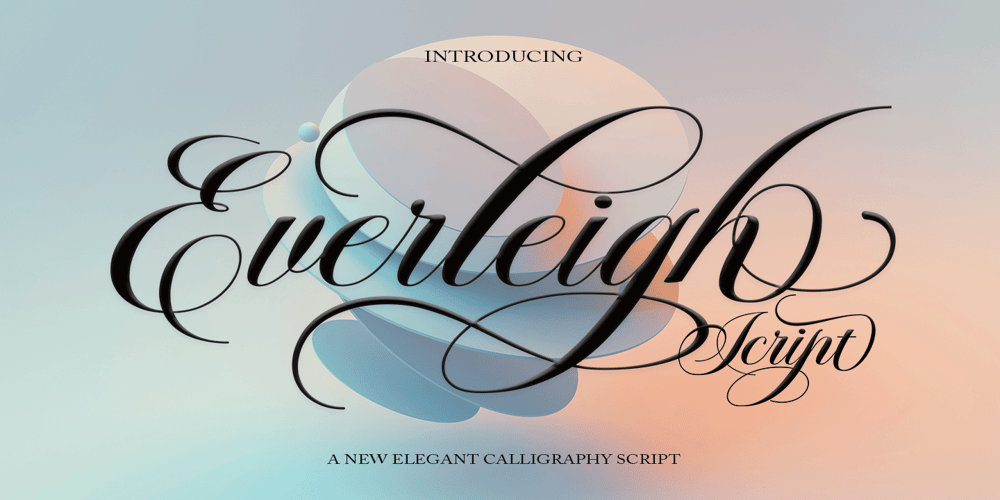
Everleigh Script
Everleigh Script font
Everleigh Script Font Family was designed by Has Rizal and published by Hrz Studio. Everleigh Script contains 1 styles and family package options. Everleigh Script including alternative characters, ligatures and various language support. With the OpenType feature with an alternative style and elegant binder. The OpenType feature does not function automatically, but you can access it manually and for the best results needed for your creativity in combining these Glyph variations. and also a touch of ornament makes this font look elegant.Files include:To enable the OpenType Stylistic alternates, you need a program that supports OpenType features such as Adobe Illustrator CS, Adobe Indesign & CorelDraw X6-X7, Microsoft Word 2010 or later versions. (Windows), Font Book (Mac) or a software program such as PopChar (for Windows and Mac).If you need help or advice, please contact meThank you for watching!